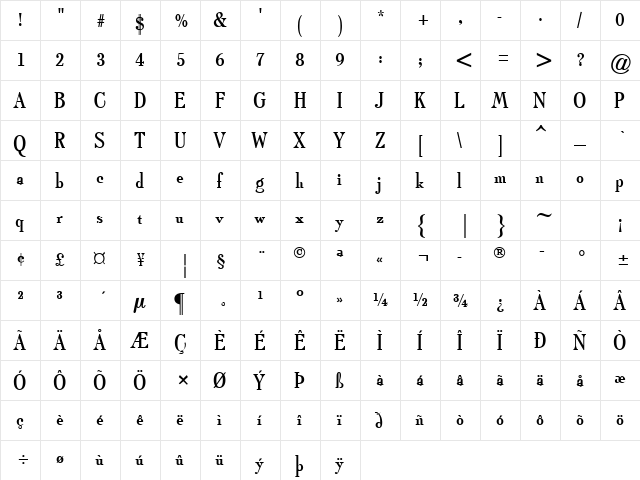
Eclipse 1 Regular Font Preview
Eclipse 1 Regular
Eclipse 1 Regular Font Details
Design Context for Eclipse 1 Typeface
Eclipse 1 offers clean, dependable letterforms without strong stylistic allegiance, making it a practical choice for designers who need flexibility.